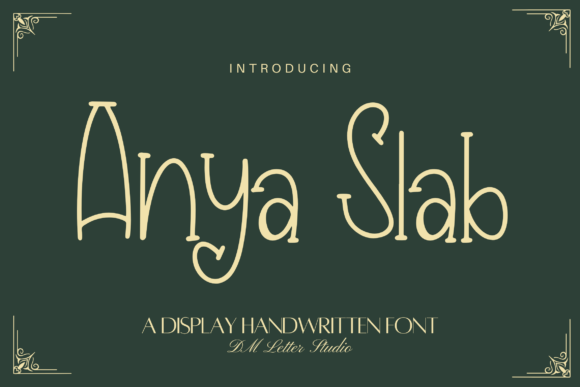
Introduction to Anya Slab Font
Embrace a unique blend of classic structure and artisanal flair with Anya Slab font, a display handwritten typeface that stands out with its elegant, whimsical proportions.
This Anya Slab typeface features elongated letterforms and delicate slab serifs that give it a refined yet approachable β€œstorybook” aesthetic Perfect for boutique branding, high-end stationery, and creative editorial headers, the Anya Slab font provides a sophisticated alternative to traditional serif fonts.